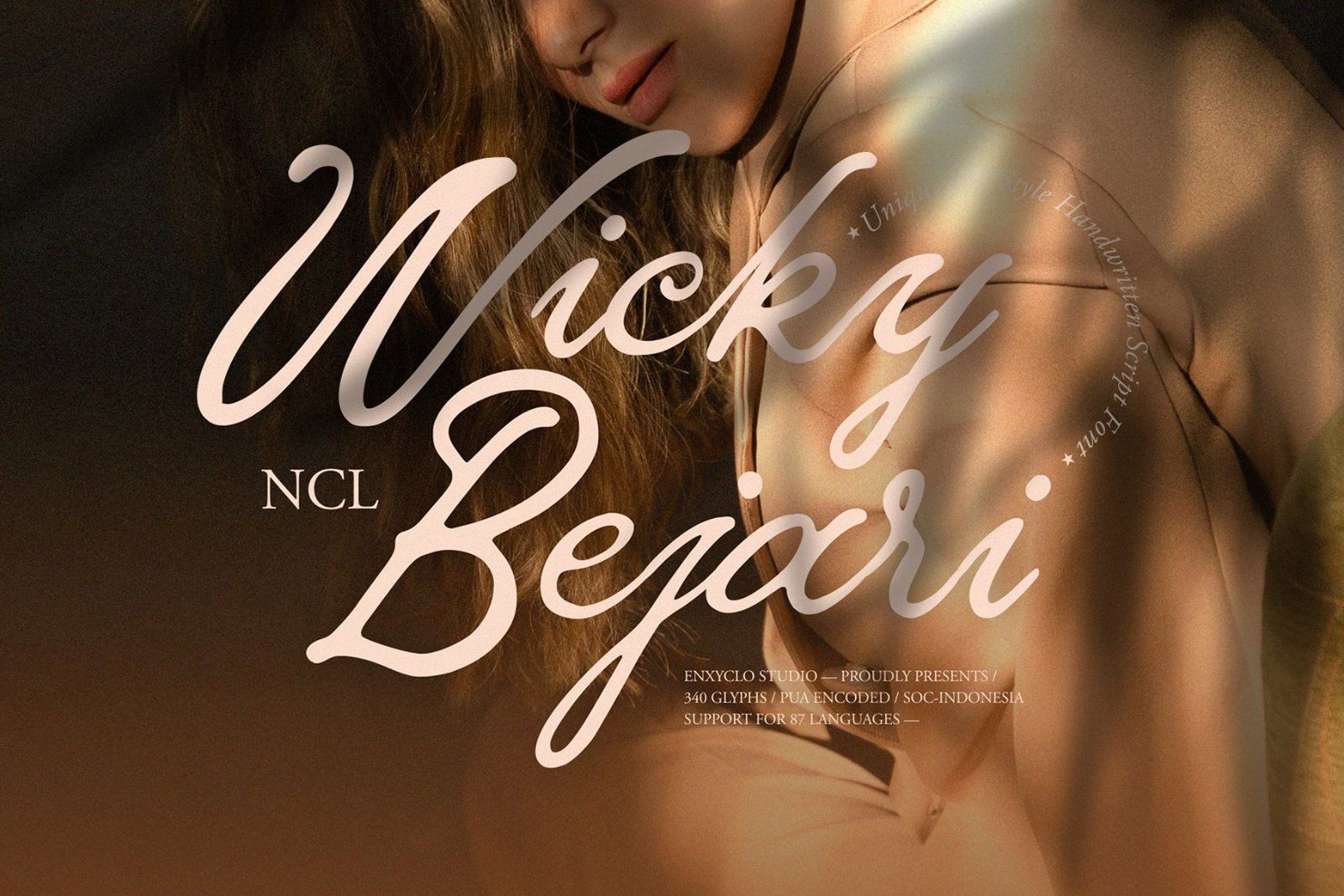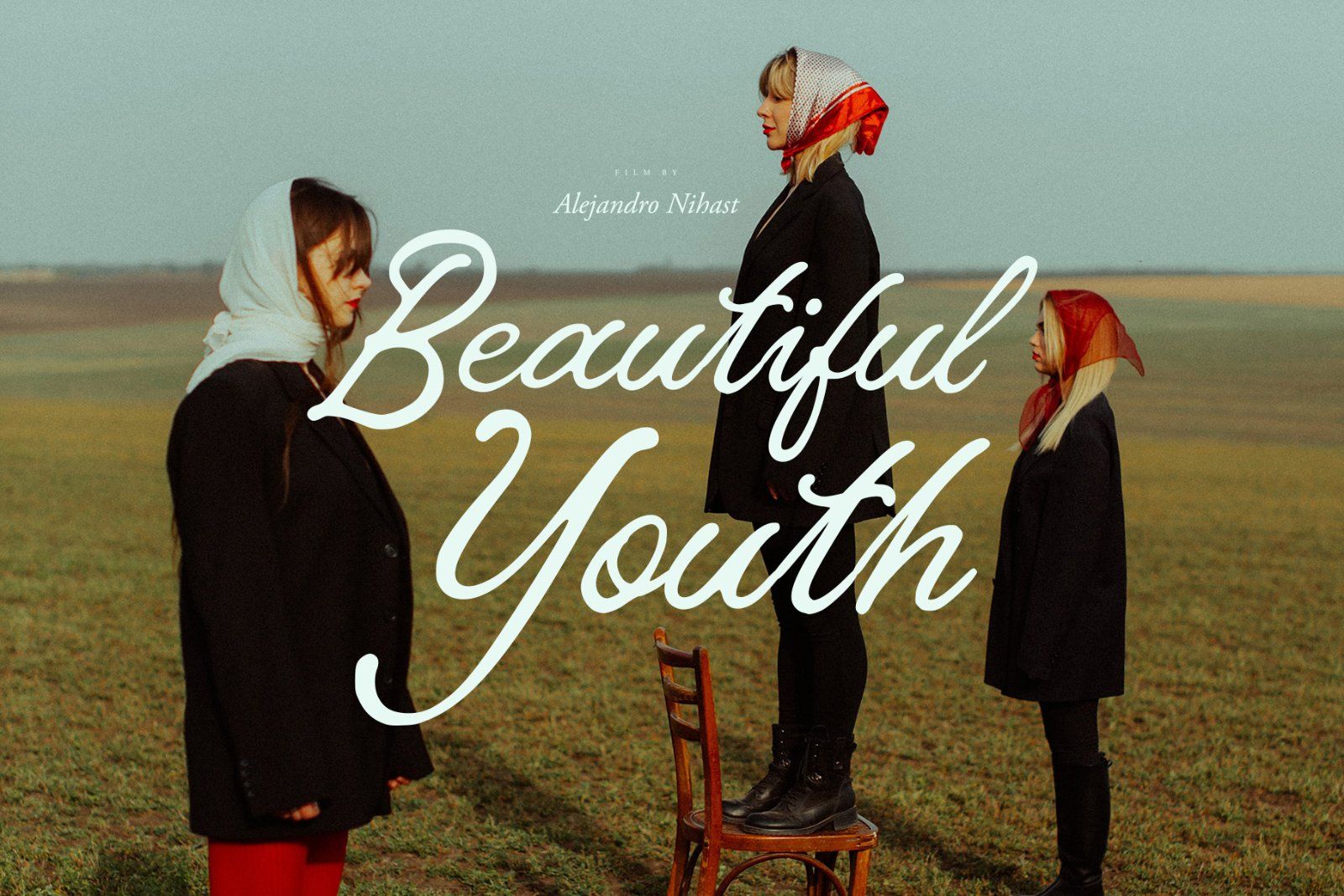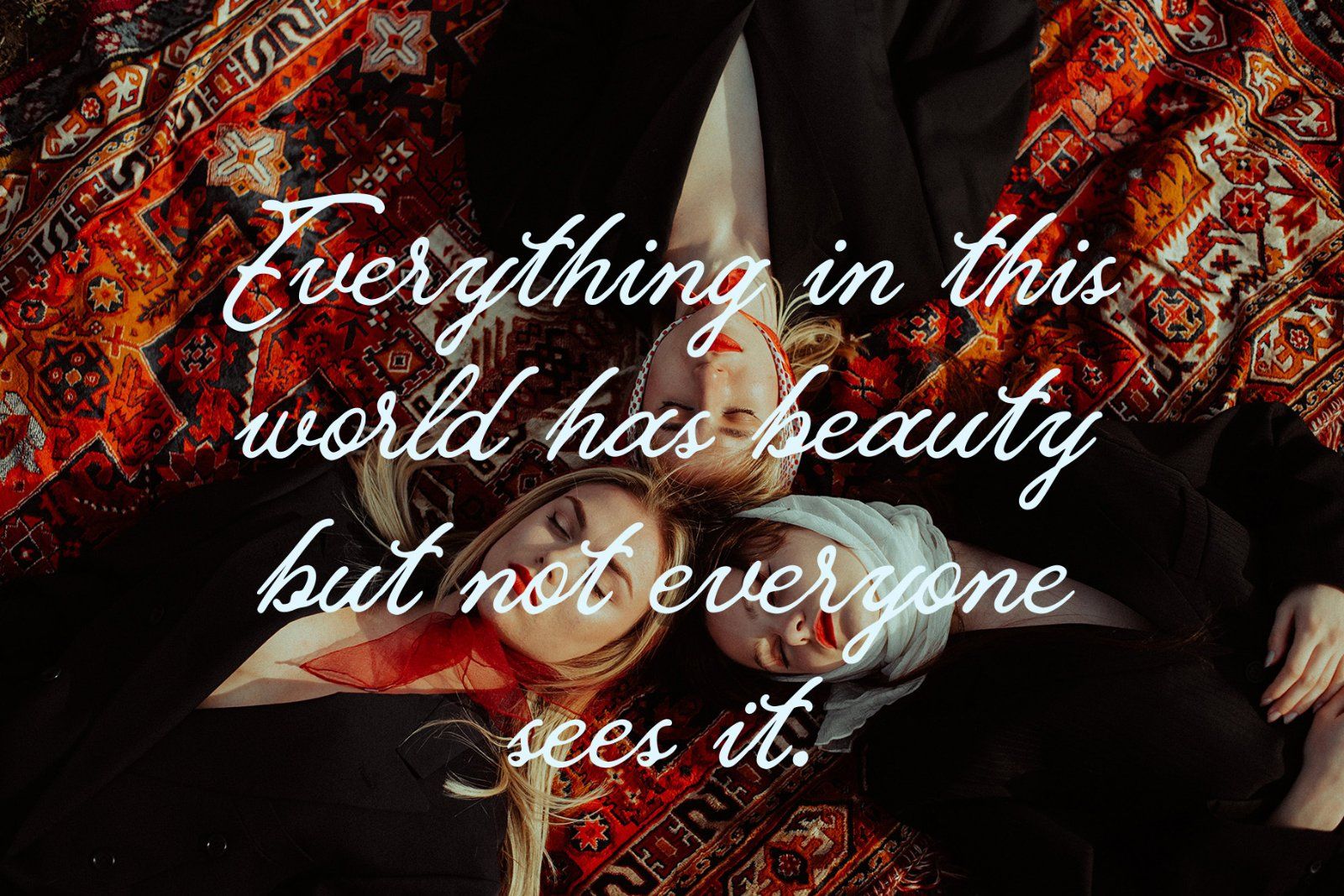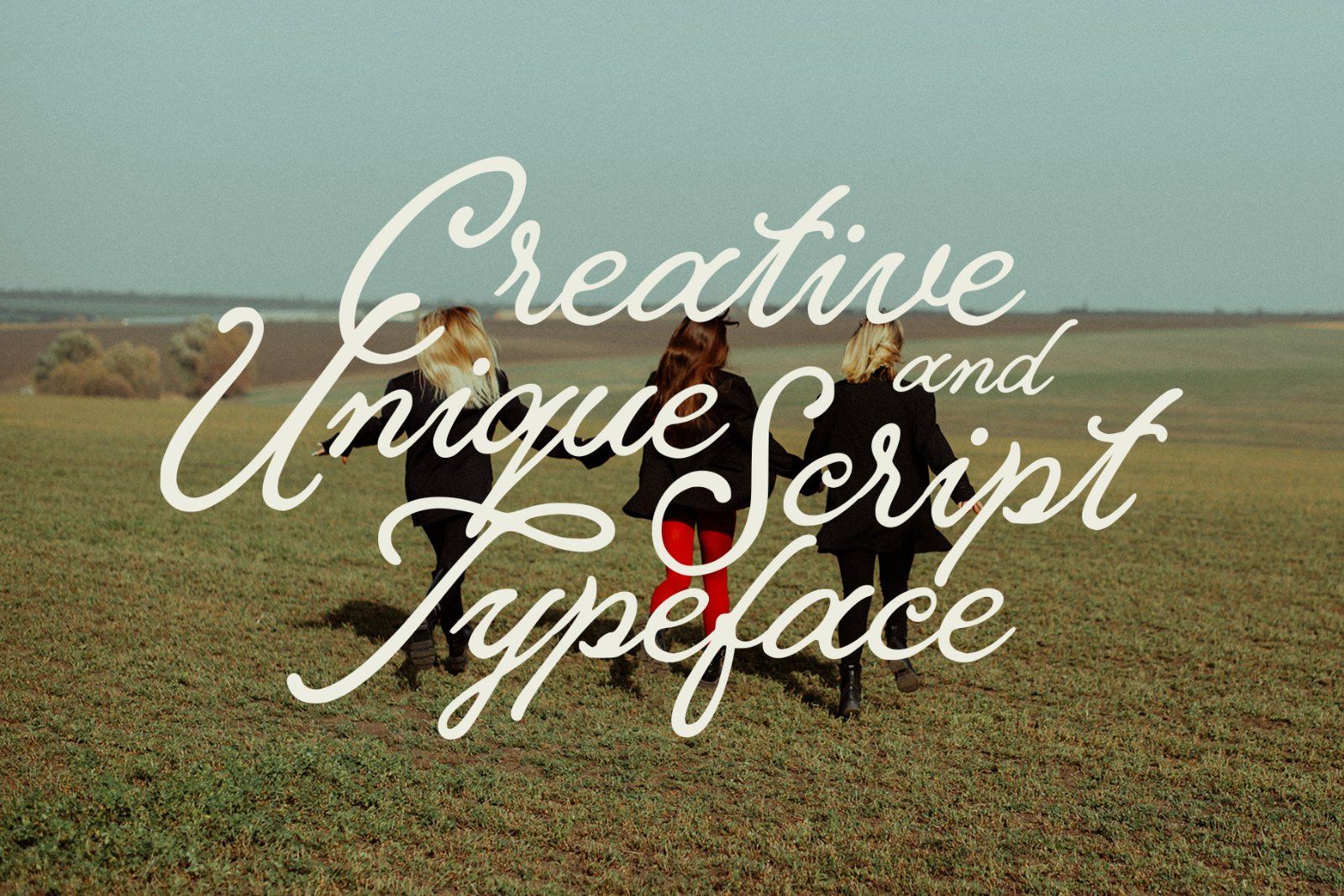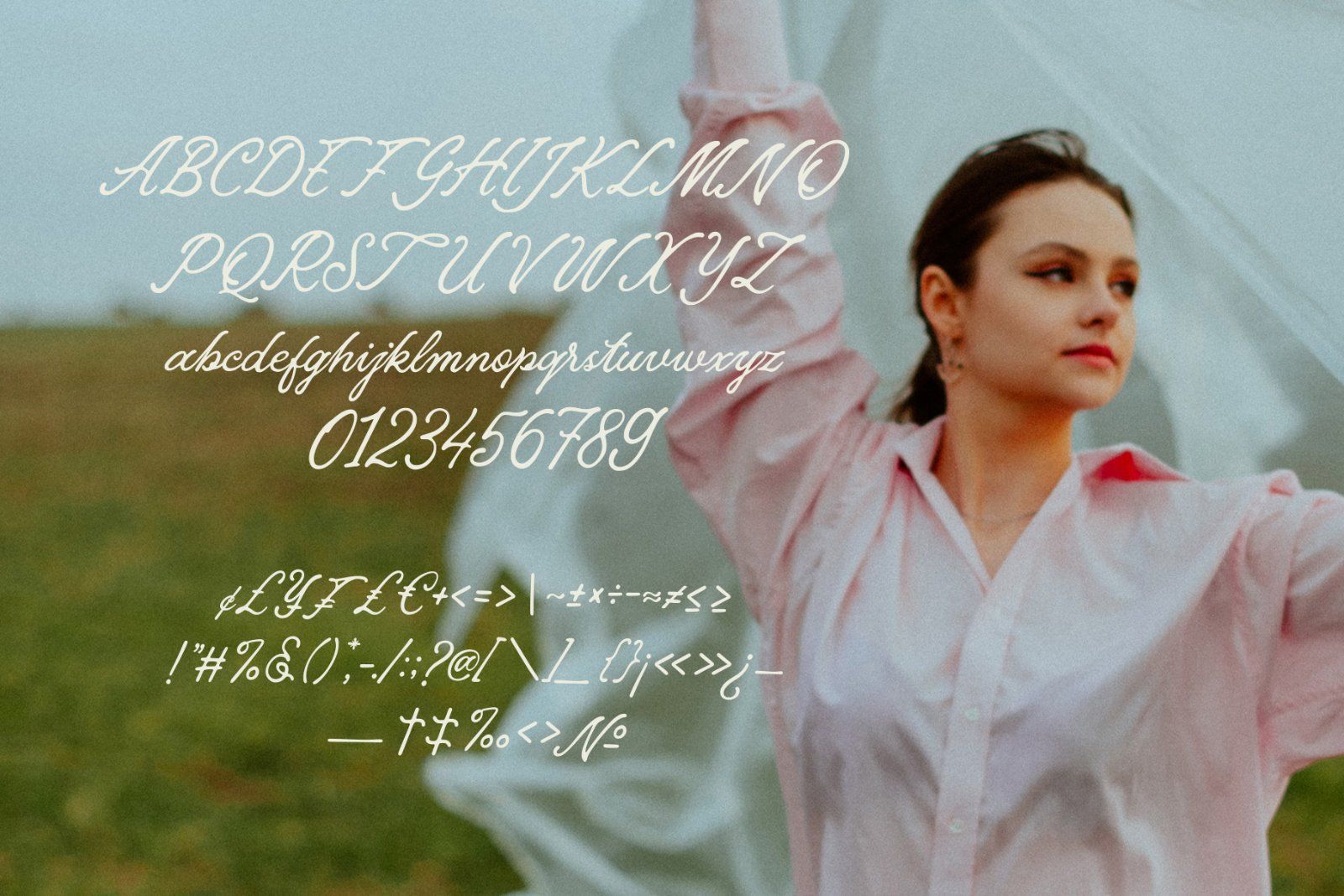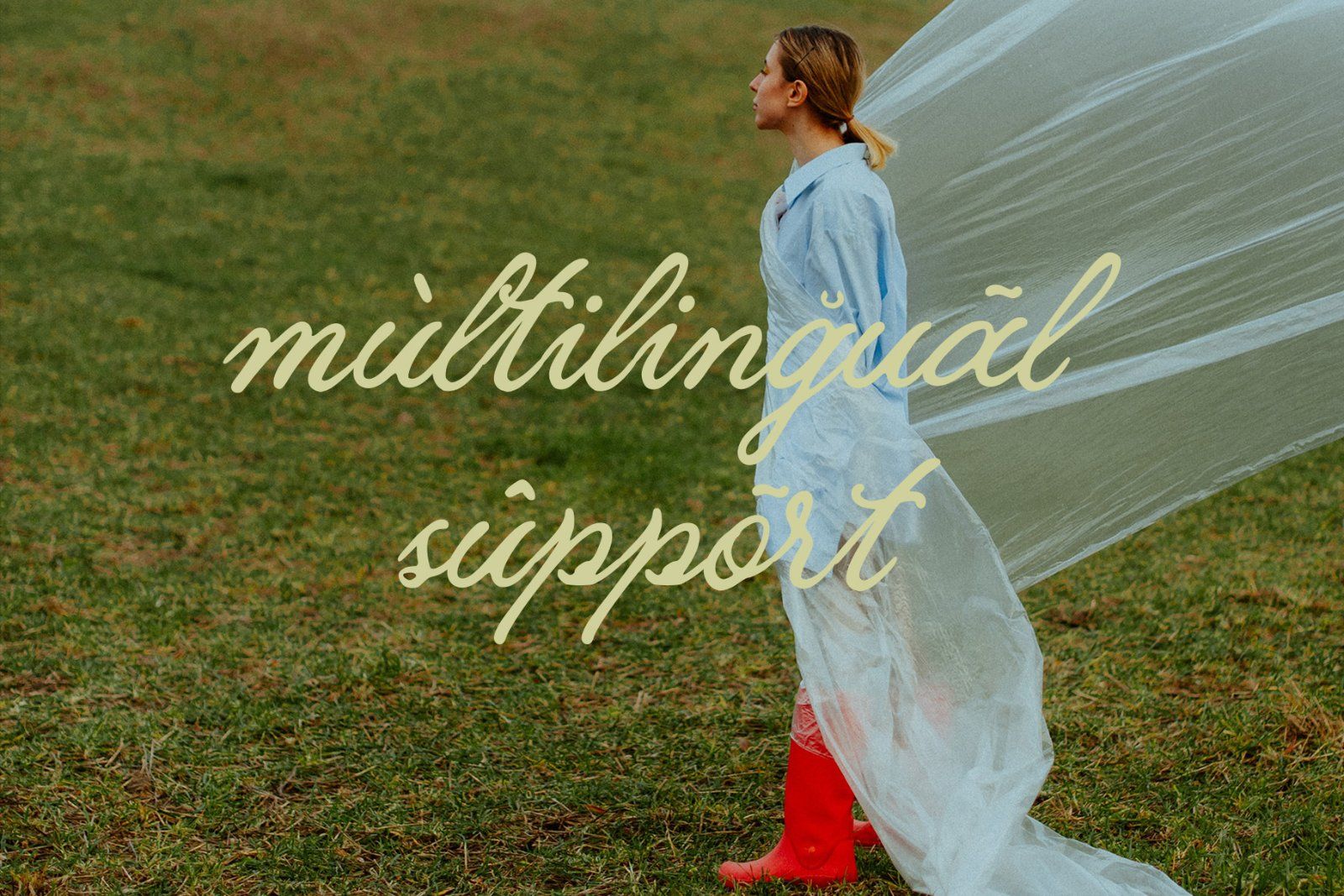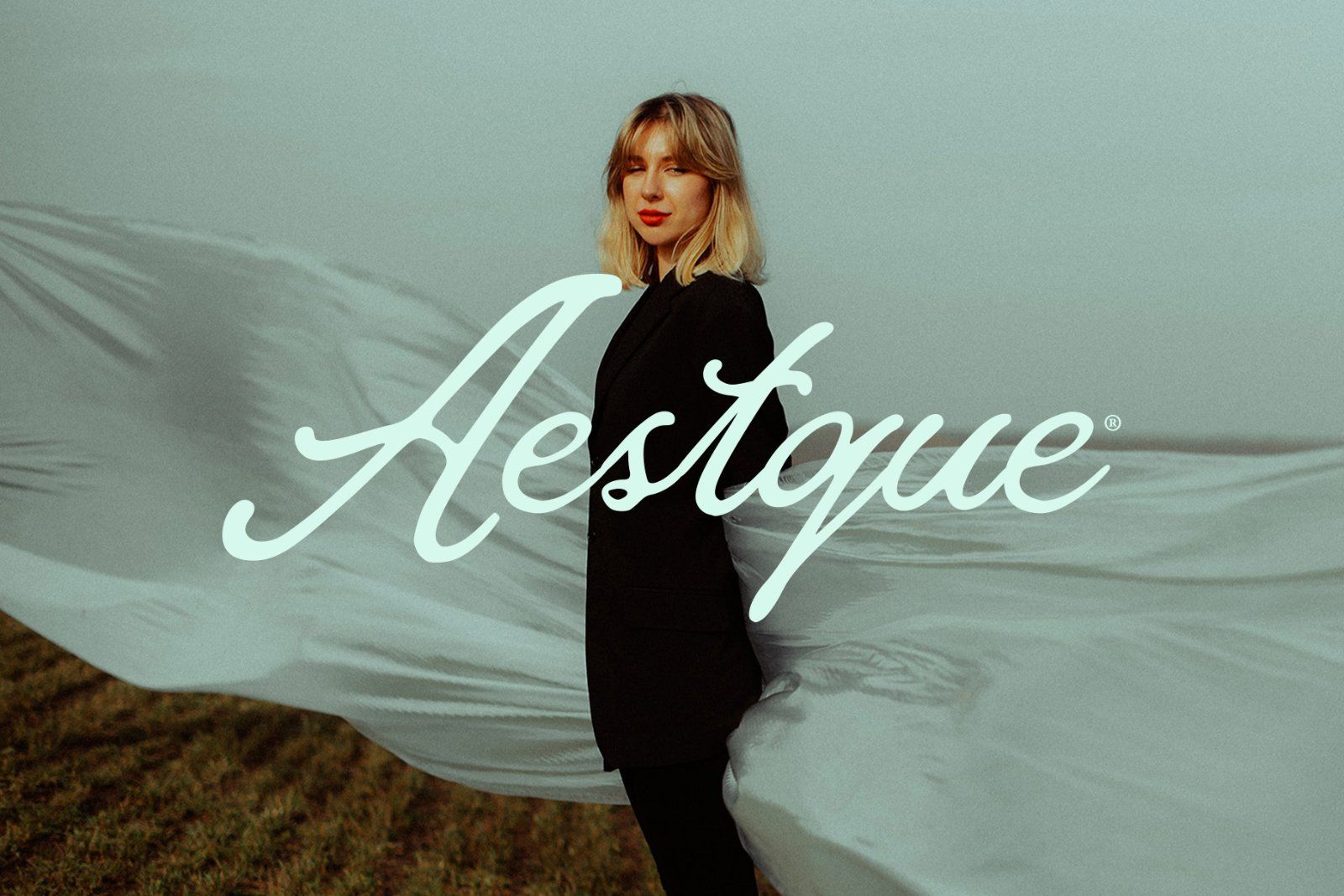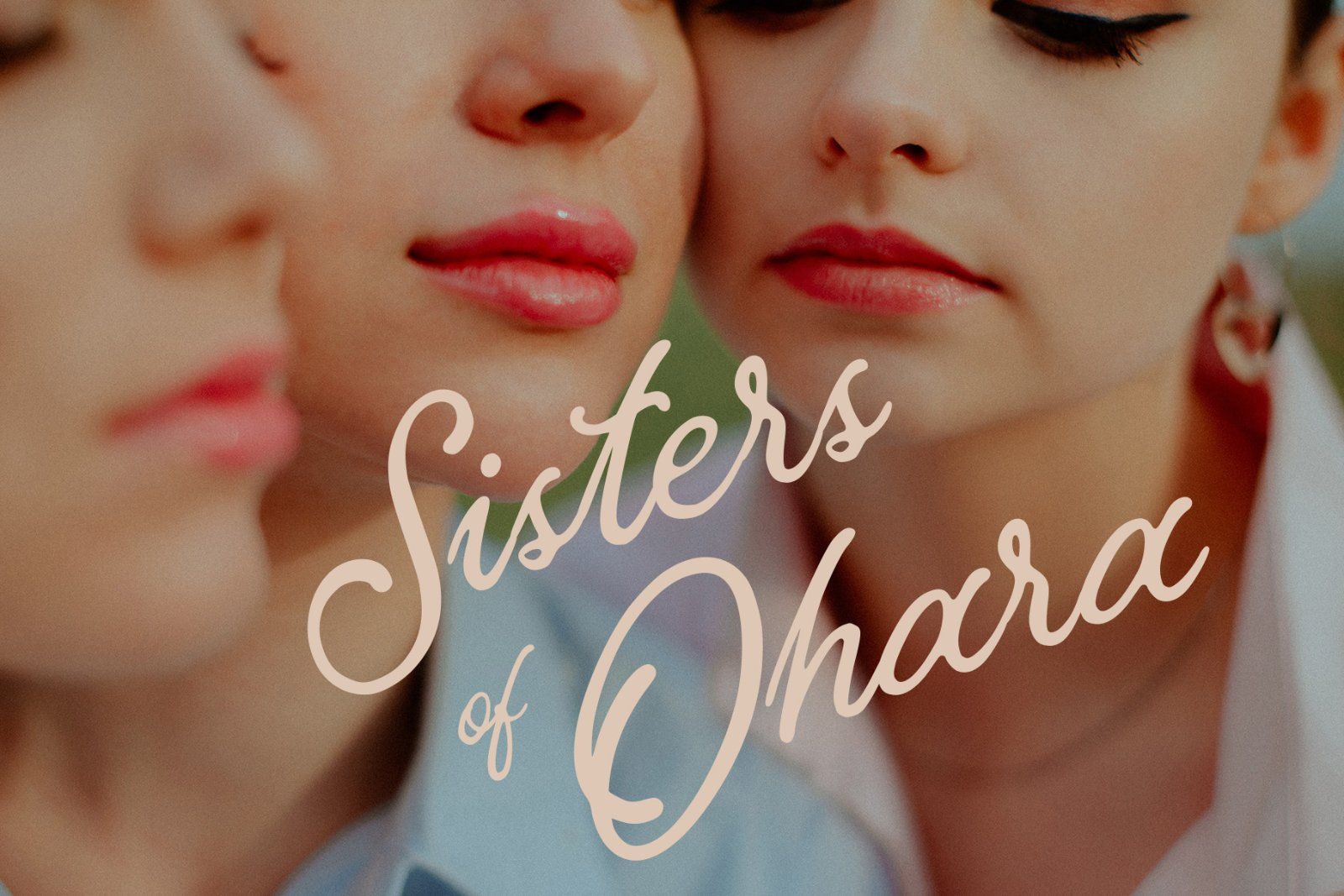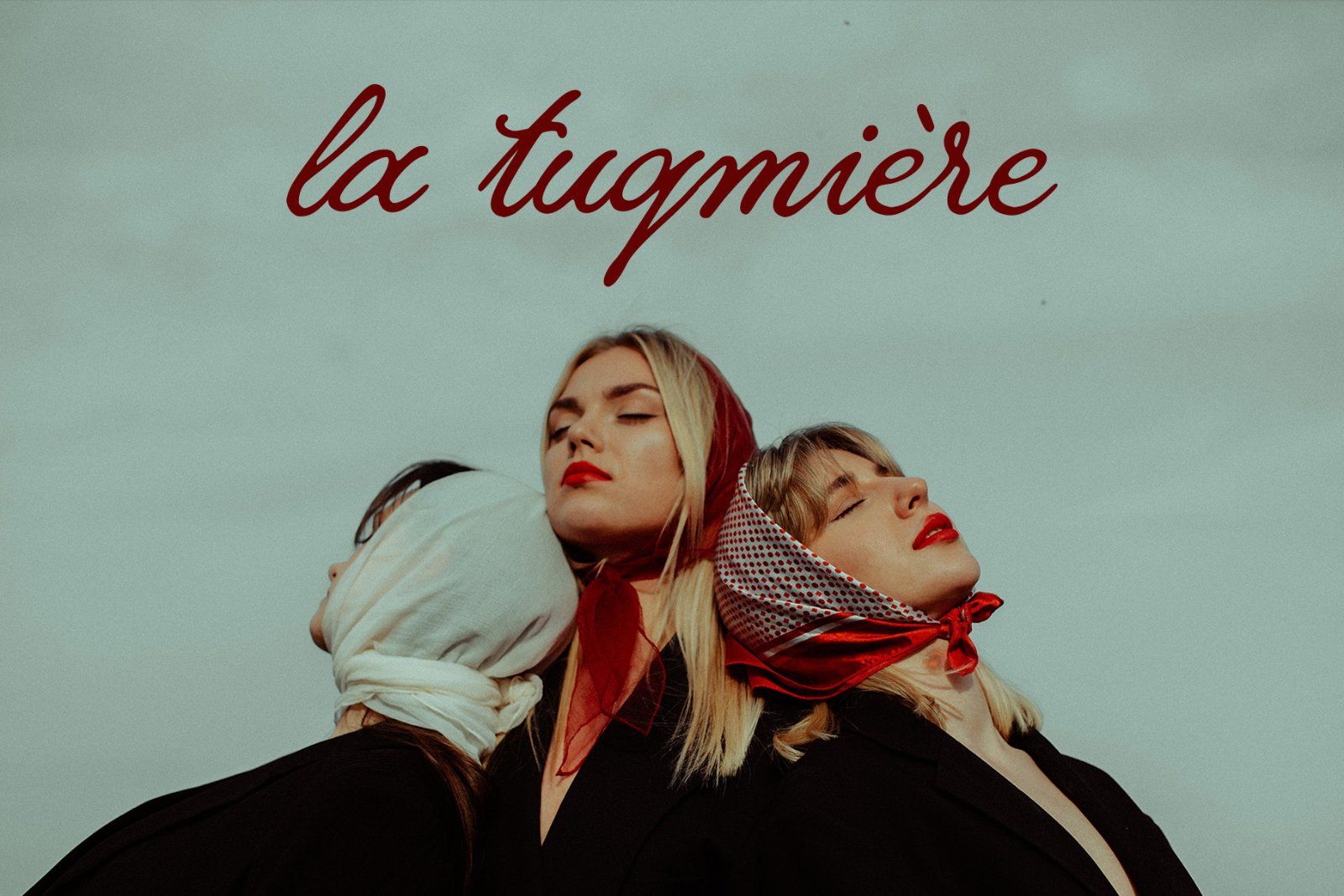
NCL WICKY BEJARI is a timeless modern classic script font that captures the essence of luxury, elegance, and refined sophistication. Crafted with graceful curves and beautifully balanced strokes, this typeface blends the charm of classic calligraphic style with a modern luxurious touch. The result is a lavish and premium script font that feels rich, stylish, and effortlessly captivating. Designed for brands that seek beauty and distinction, NCL WICKY BEJARI transforms typography into an elegant visual signature. Its flowing script character creates a refined harmony between classic aesthetics and contemporary expression, making it ideal for logos, fashion brands, and premium visual identities. Every curve carries a sense of glamour and personality, allowing your designs to communicate elegance with confidence.
Inspired by the world of fashion, cosmetic, beauty, skincare, and boutique branding, NCL WICKY BEJARI delivers a luxurious aesthetic that enhances every detail. Whether used for premium packaging, editorial layouts, beauty campaigns, or sophisticated product branding, this font creates a rich atmosphere that feels aesthetic, polished, and timeless. More than just a script font, NCL WICKY BEJARI is designed to become a symbol of premium design and modern elegance—perfect for creators who want to build luxurious brands, glamorous visuals, and unforgettable experiences through sophisticated typography.
FEATURE
• Contains 340 Glyphs
• Uppercase, Lowercase & Numeral
• Punctuation, Symbol & Currencies
PERFECT FOR
• Luxury Logo & Branding
• Fashion & Boutique Identity
• Beauty, Cosmetic & Skincare Packaging
• Premium Product Labels
• Glamour Advertising Campaigns
• Elegant Editorial & Magazine Design
• Signature Logos & Personal Branding
• Wedding Invitations & Luxury Stationery
• Social Media Branding
• High-End Visual Identity Design